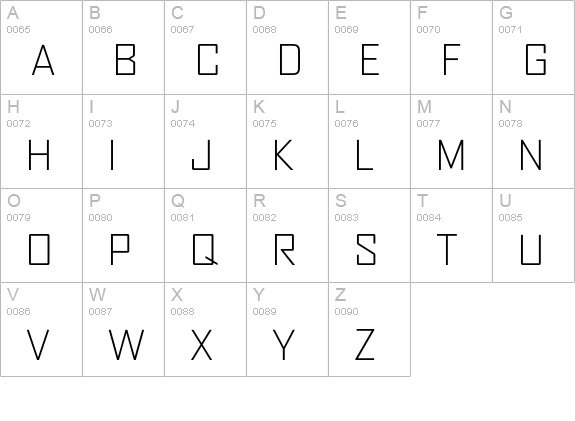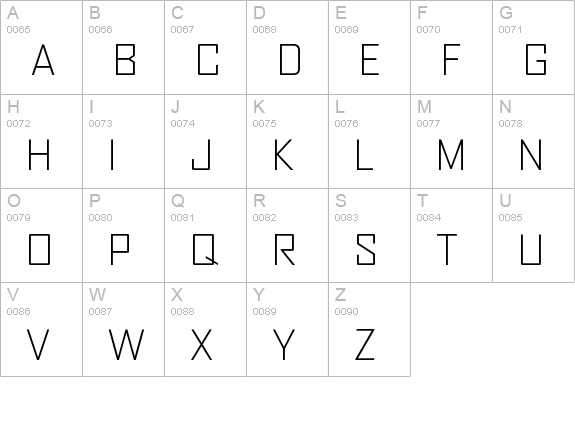
AgencyFB-LightWide Font Details
AgencyFB-LightWide is a modern and sleek font that exudes elegance and sophistication. With its clean lines and subtle curves, this typeface is perfect for creating a professional and polished look in your design projects. The light weight of the font gives it a delicate and airy feel, making it ideal for headers, titles, and other prominent text elements. What's even better is that AgencyFB-LightWide is available for free download at FontsMarket.com. This means you can easily access this high-quality font without having to spend a dime. Whether you're working on a website, a branding project, or any other design endeavor, AgencyFB-LightWide is sure to elevate your work with its timeless appeal and versatility. Download it now and add a touch of refinement to your designs!